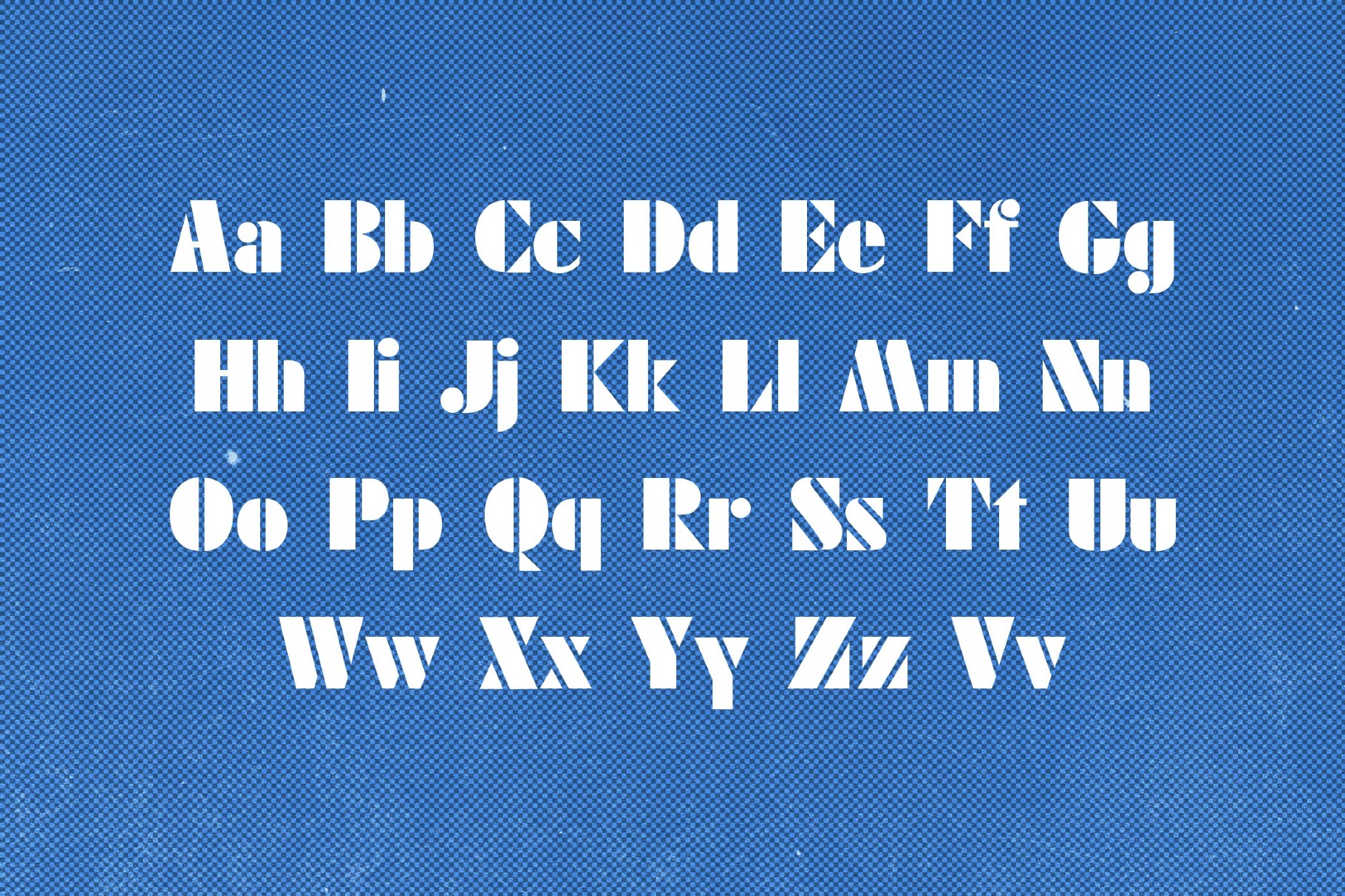
Future Poster Font
Future Poster font is a bold stencil with squared geometry and mechanical cutouts. Quite a recall to the space-race era movie posters and 1970s sci-fi covers. Use it for poster headlines, festival branding, game title screens, tech-product packaging, editorial headlines, web hero typography, apparel graphics, wayfinding signage, and social ads.